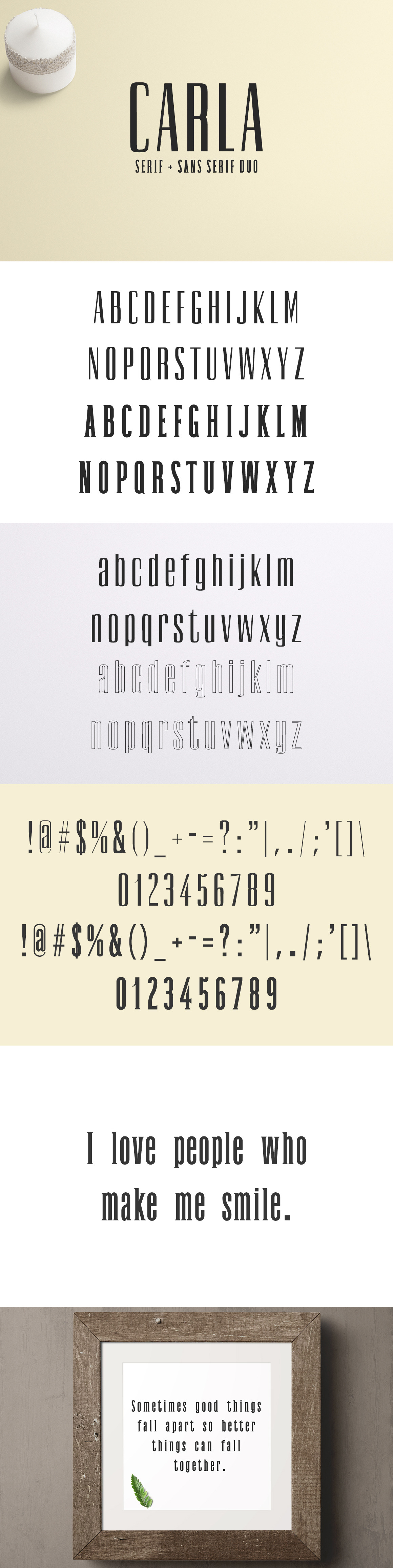
Carla Duo 8 Font Family Pack
Carla Serif + Sans Serif Duo Font Family Pack features unique and modern serif look and feel. Perfect for gorgeous logos, titles, web layouts and branding. It looks gorgeous in all caps with a wide-set spacing if you want to try a classy look, or beautiful on its own in capital and lowercase letters for something completely timeless.
Carla Font Duo Features:
- Uppercase Multilingual Letters
- Lowercase Multilingual Letters
- Non English Characters ( Latin Supplement + Latin Extended A)